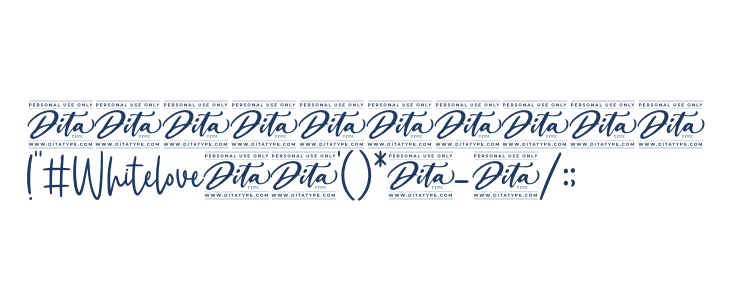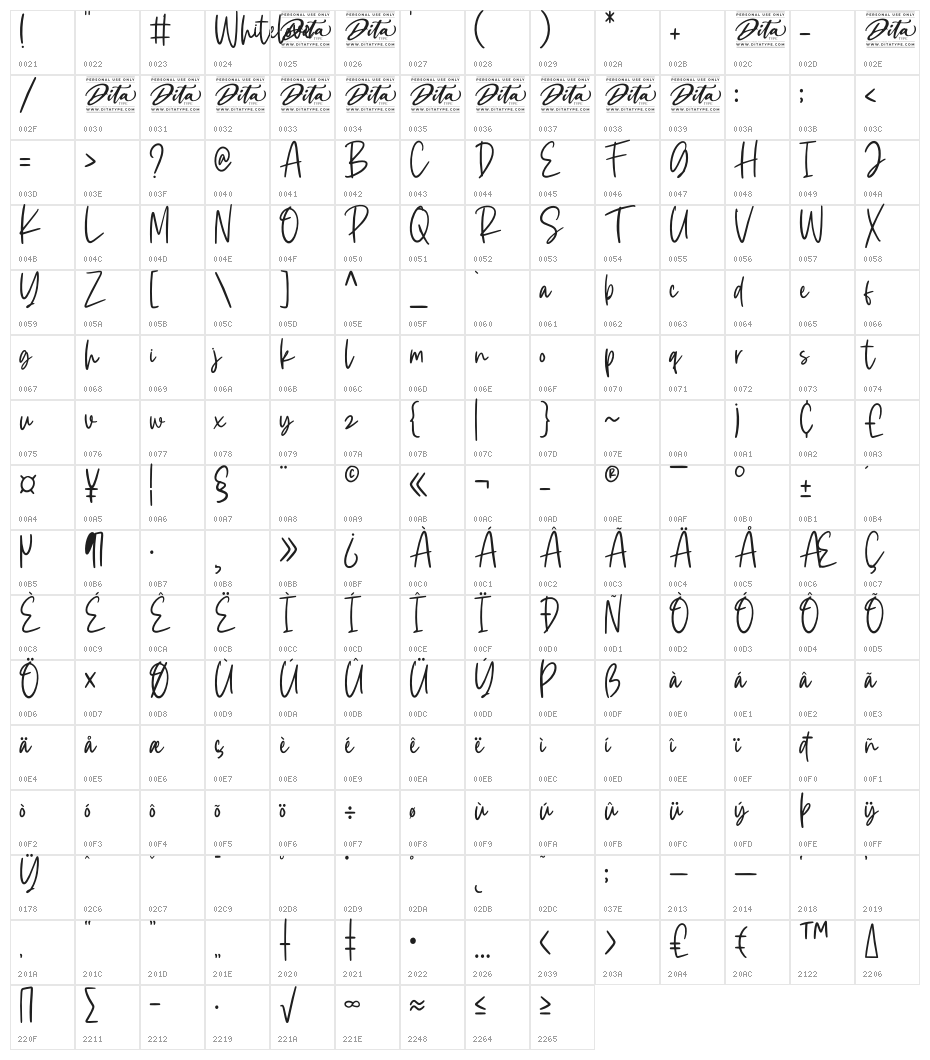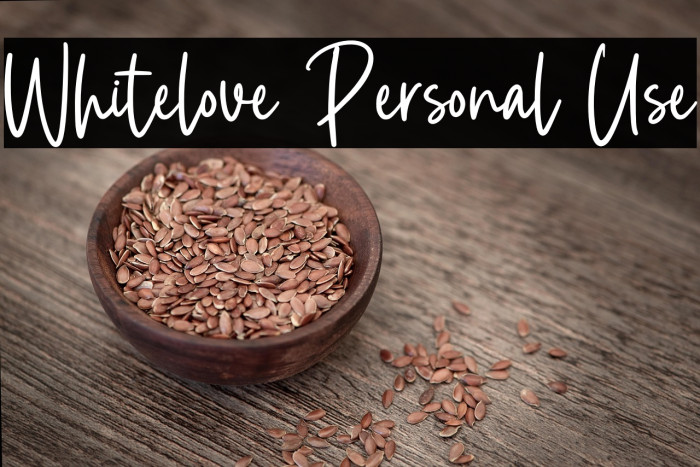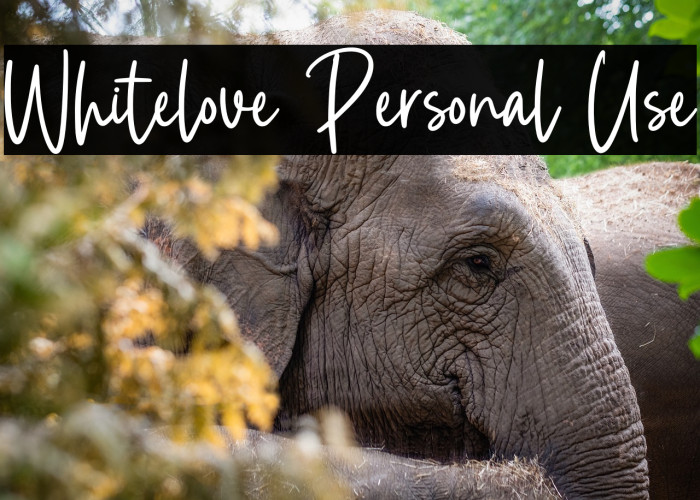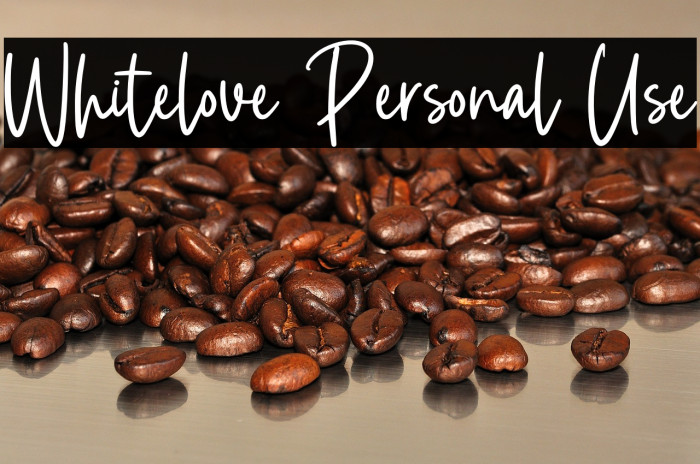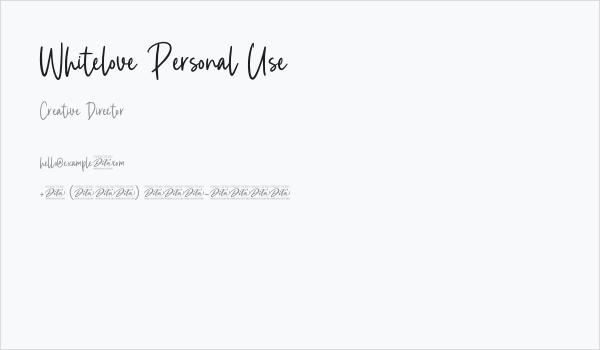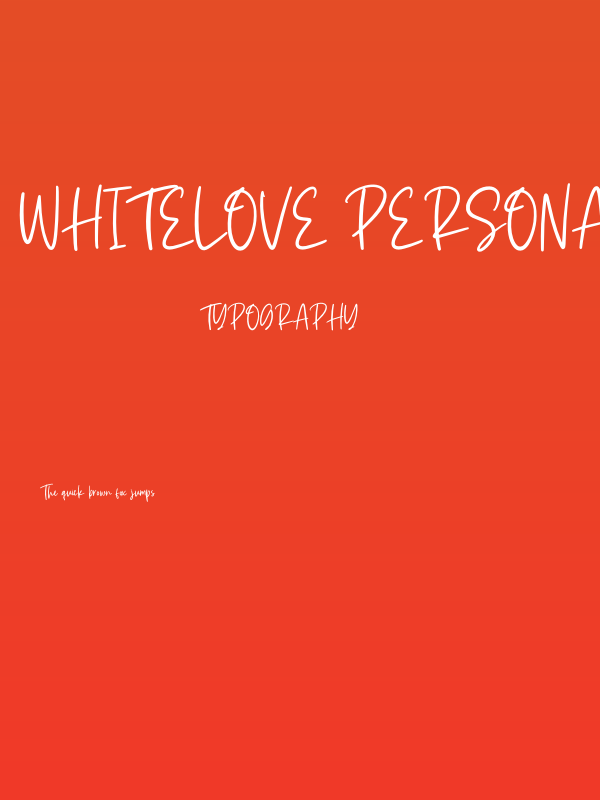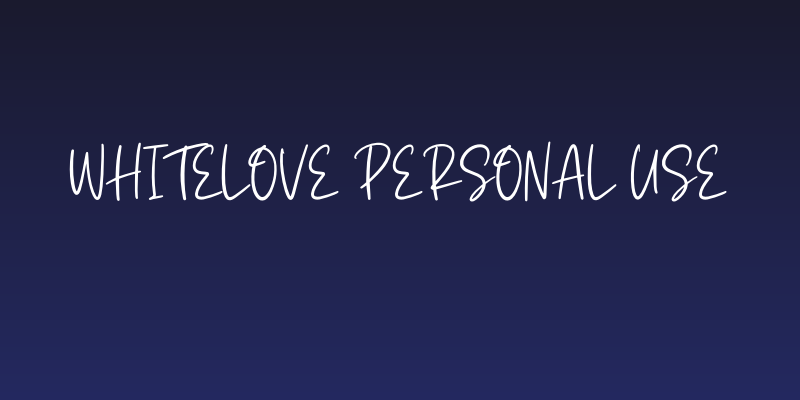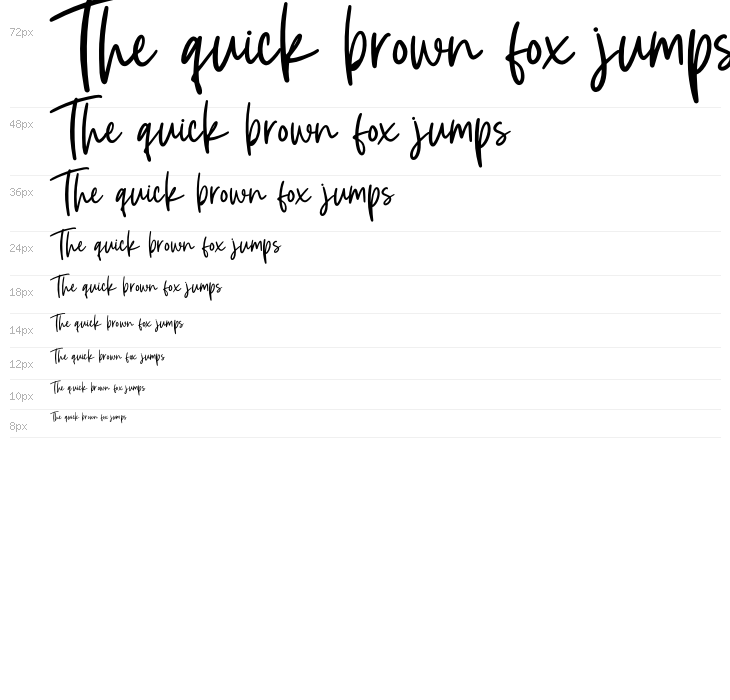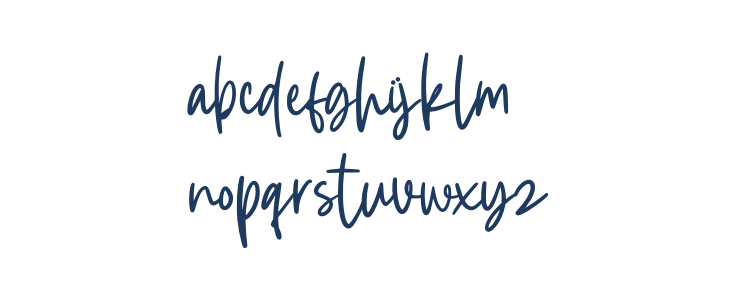
Whitelove Personal Use Font
Whitelove Personal Use Description
This font features a lively and expressive handwritten style with a modern flair. The characters are slightly slanted, giving a dynamic and energetic feel. The strokes are smooth and fluid, with a consistent thickness that maintains readability while adding a personal touch. The uppercase letters are bold and prominent, while the lowercase letters maintain a casual and approachable appearance. The numerals and special characters are crafted to match the overall style, ensuring a cohesive look across all text elements.
| Proposed Projects | Ideal for personal branding, social media graphics, wedding invitations, and creative projects that require a personal touch. |